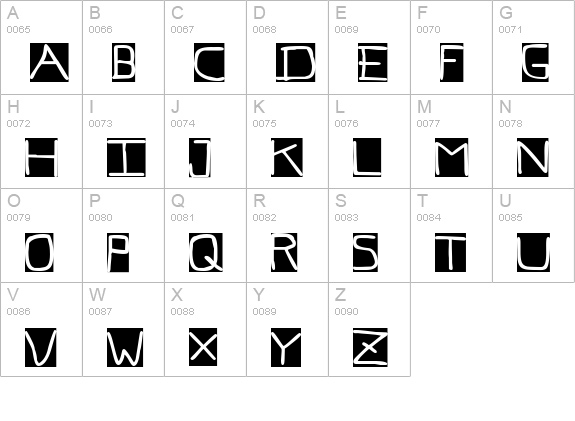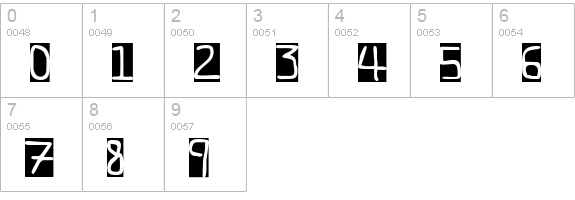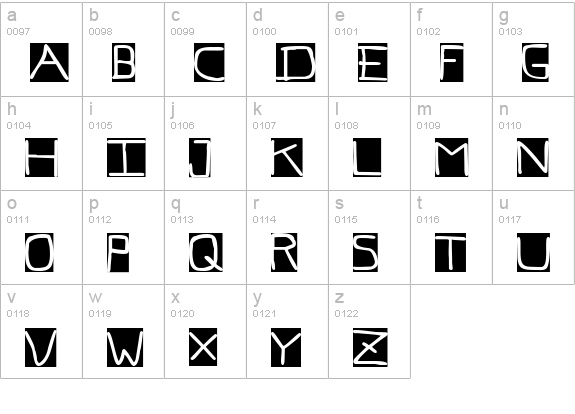
Pf_veryverybadfont7 Inverted Font Details
Pf_veryverybadfont7 Inverted is a unique and eye-catching font that will make your designs stand out from the crowd. With its unconventional and inverted letterforms, this font pushes the boundaries of traditional typography and adds a touch of quirkiness to any project. Designed with creativity in mind, Pf_veryverybadfont7 Inverted is perfect for those who want to make a bold statement with their designs. Whether you're working on a poster, logo, or website, this font will instantly grab attention and leave a lasting impression. What's even better is that Pf_veryverybadfont7 Inverted is available for free download at FontsMarket.com. Yes, you read that right - this incredible font can be yours without spending a dime. FontsMarket.com offers a wide range of high-quality fonts, and Pf_veryverybadfont7 Inverted is just one of the many gems you'll find there. So why wait? Don't miss out on the opportunity to enhance your designs with Pf_veryverybadfont7 Inverted. Download it today for free and let your creativity soar to new heights.